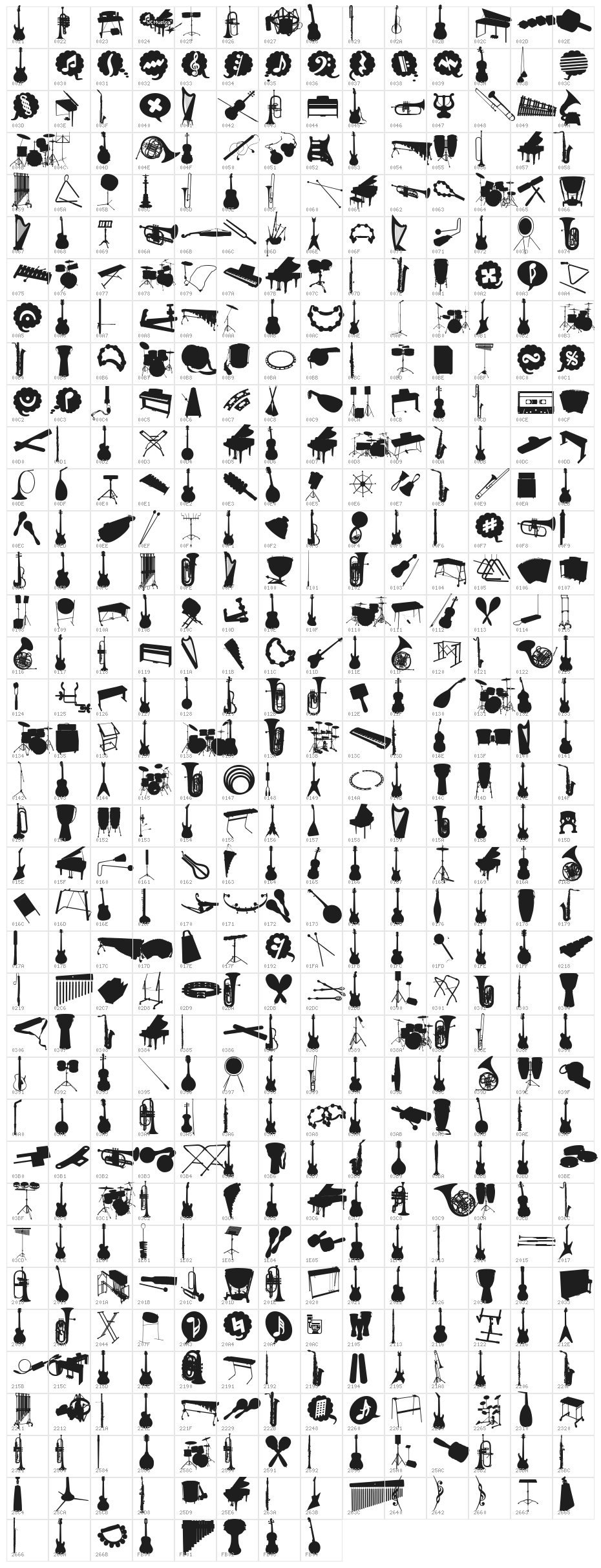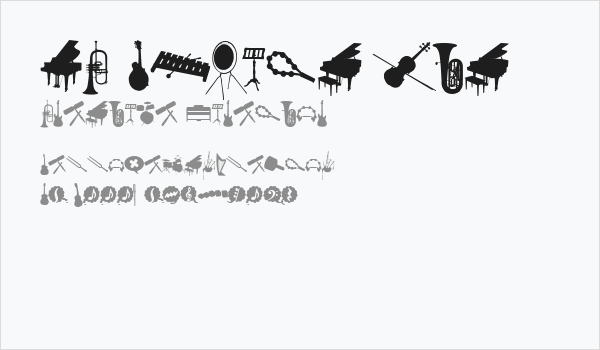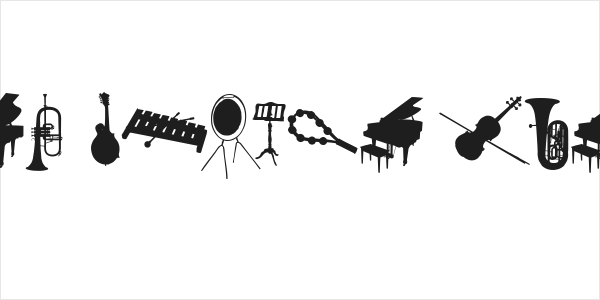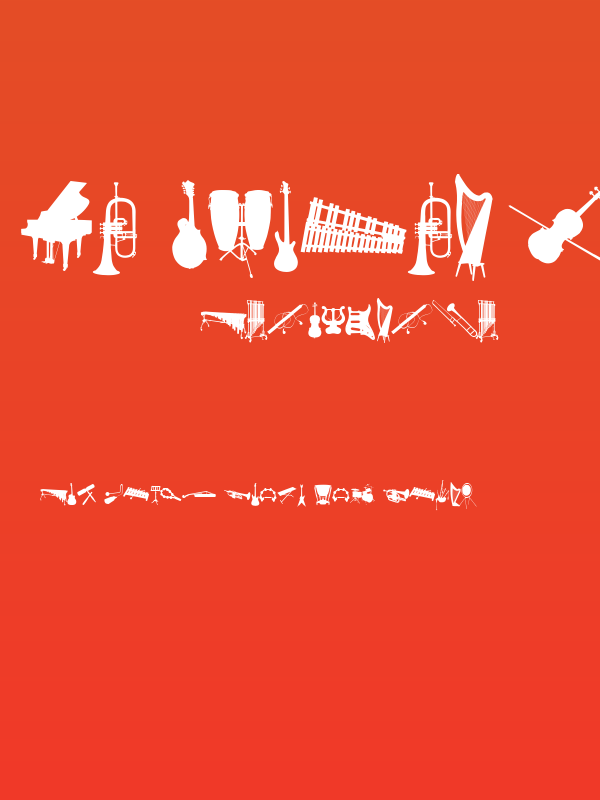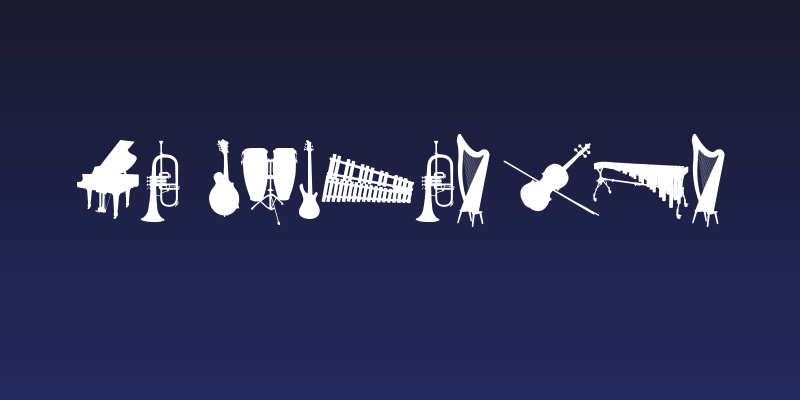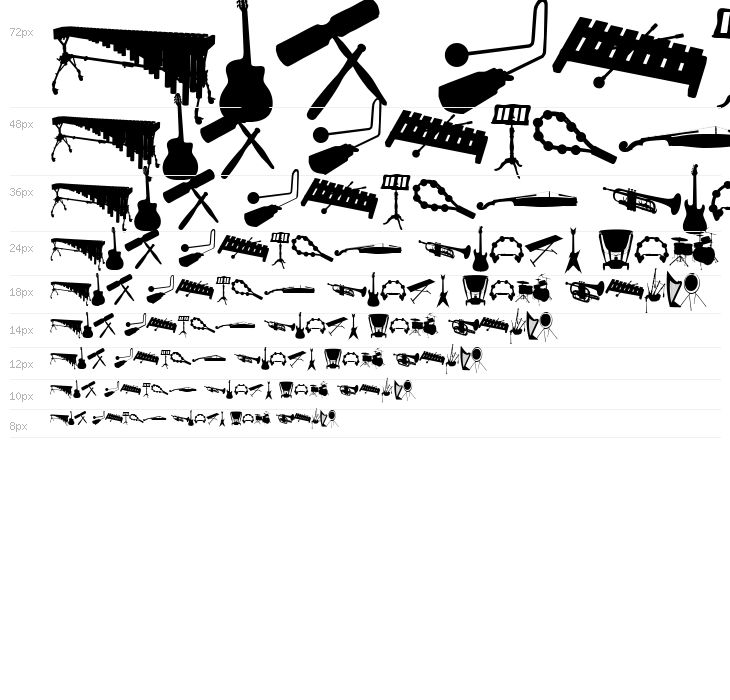
WC Musica Bta Font
WC Musica Bta Description
This font is a decorative collection of musical instrument silhouettes and musical symbols. Each character is represented by a detailed and stylized icon, ranging from guitars, pianos, and drums to musical notes and clefs. The design is bold and playful, making it ideal for creative projects. The icons are well-defined, with a consistent style that captures the essence of each instrument or symbol. This font is perfect for music-themed designs, offering a unique way to incorporate musical elements into visual projects.
| Proposed Projects | Ideal for music event posters, album covers, educational materials, and creative branding for music-related businesses. |